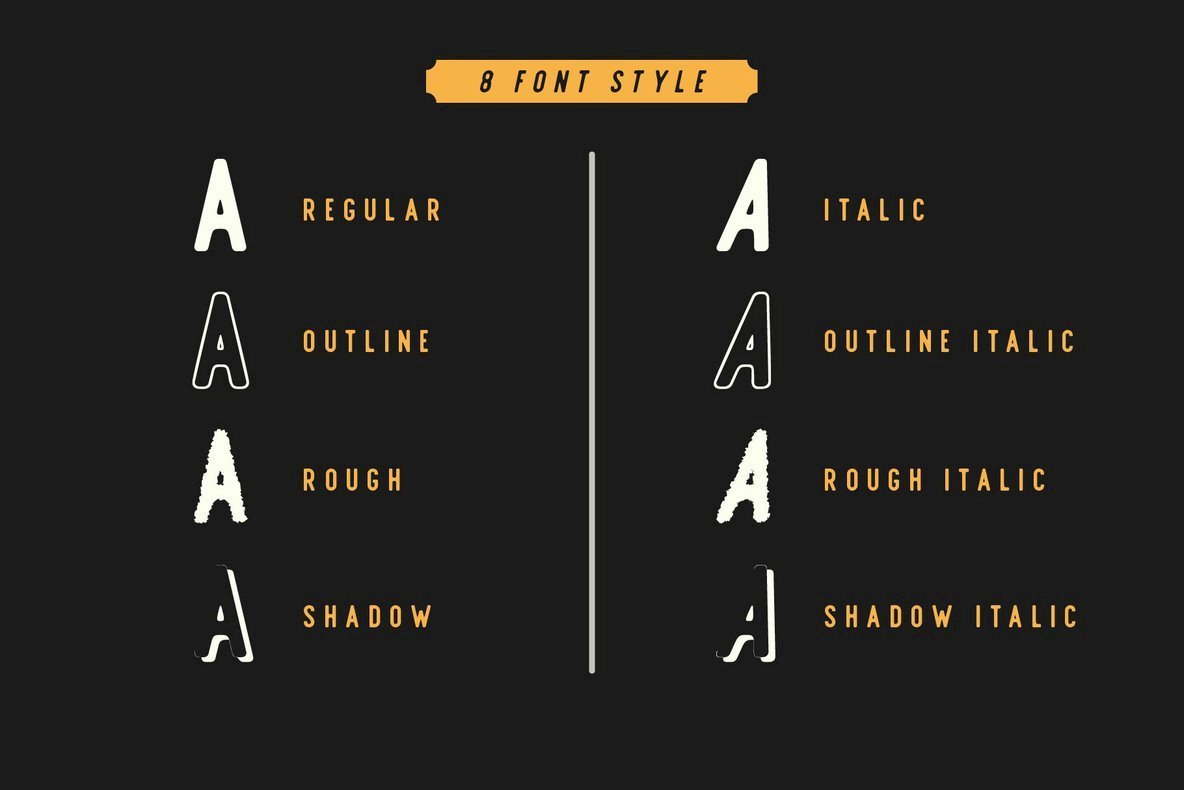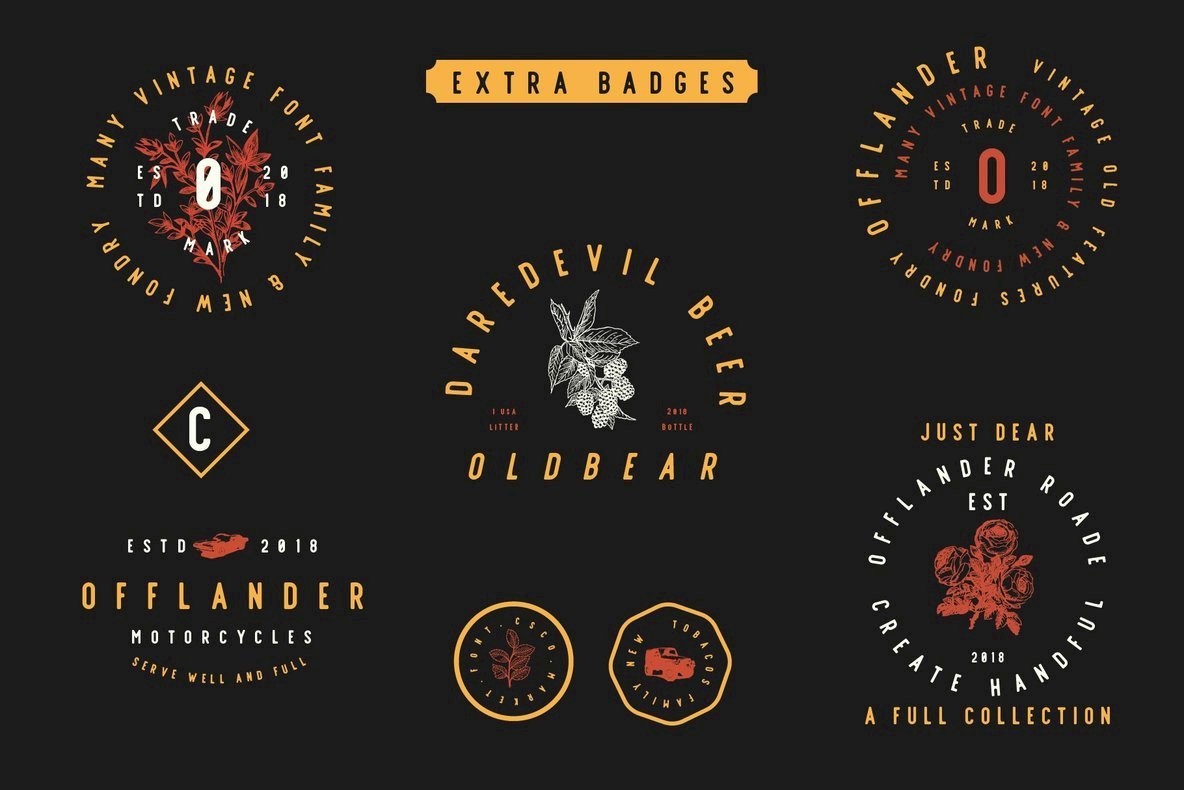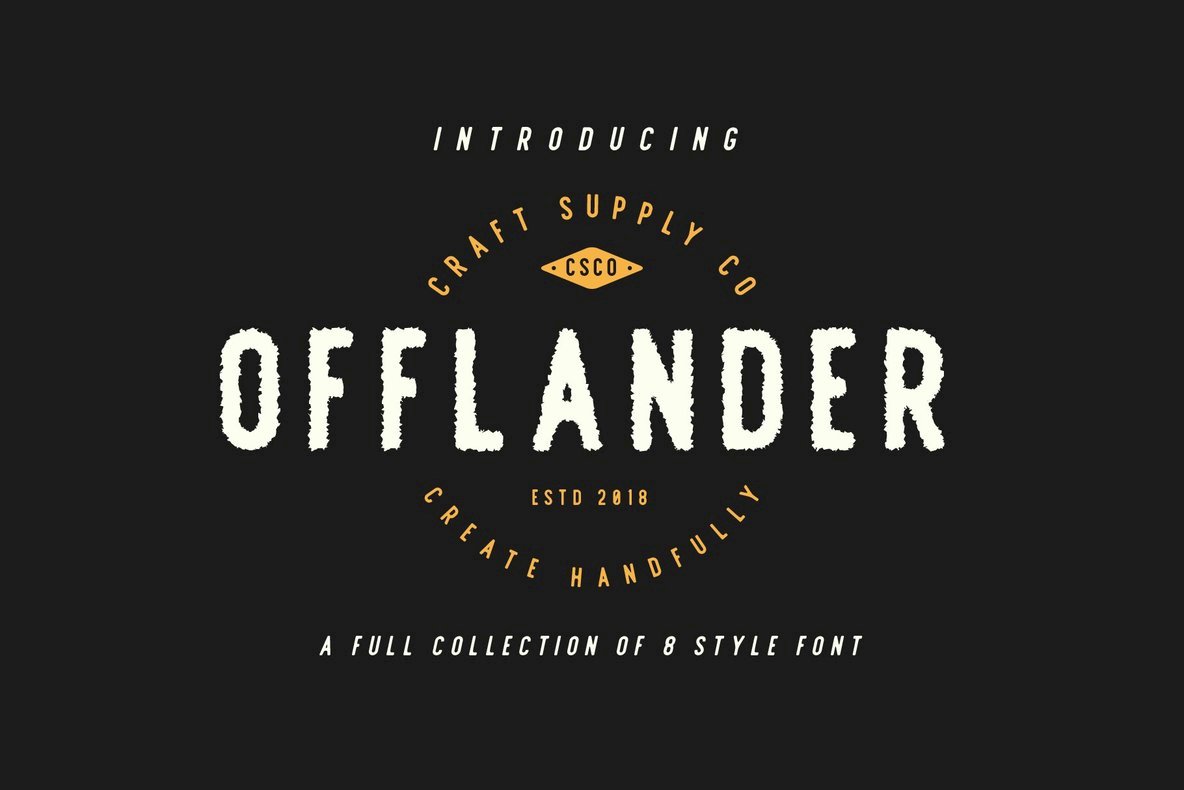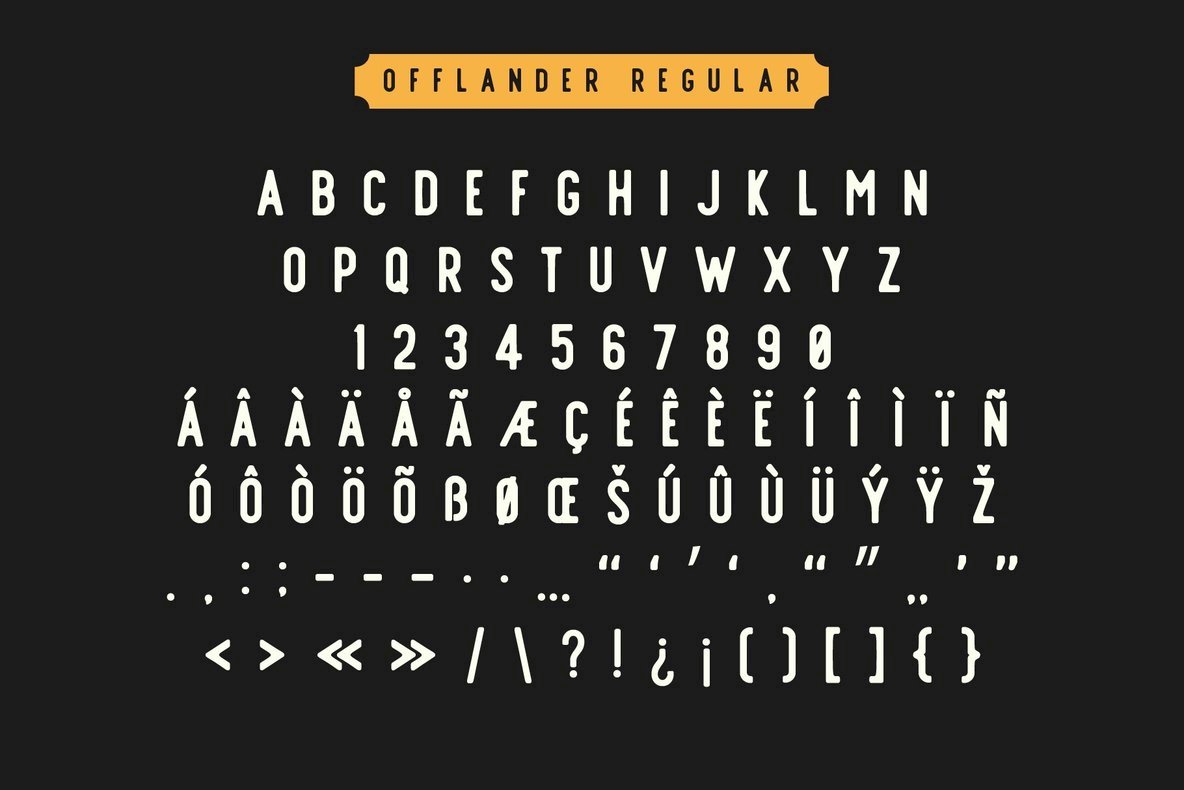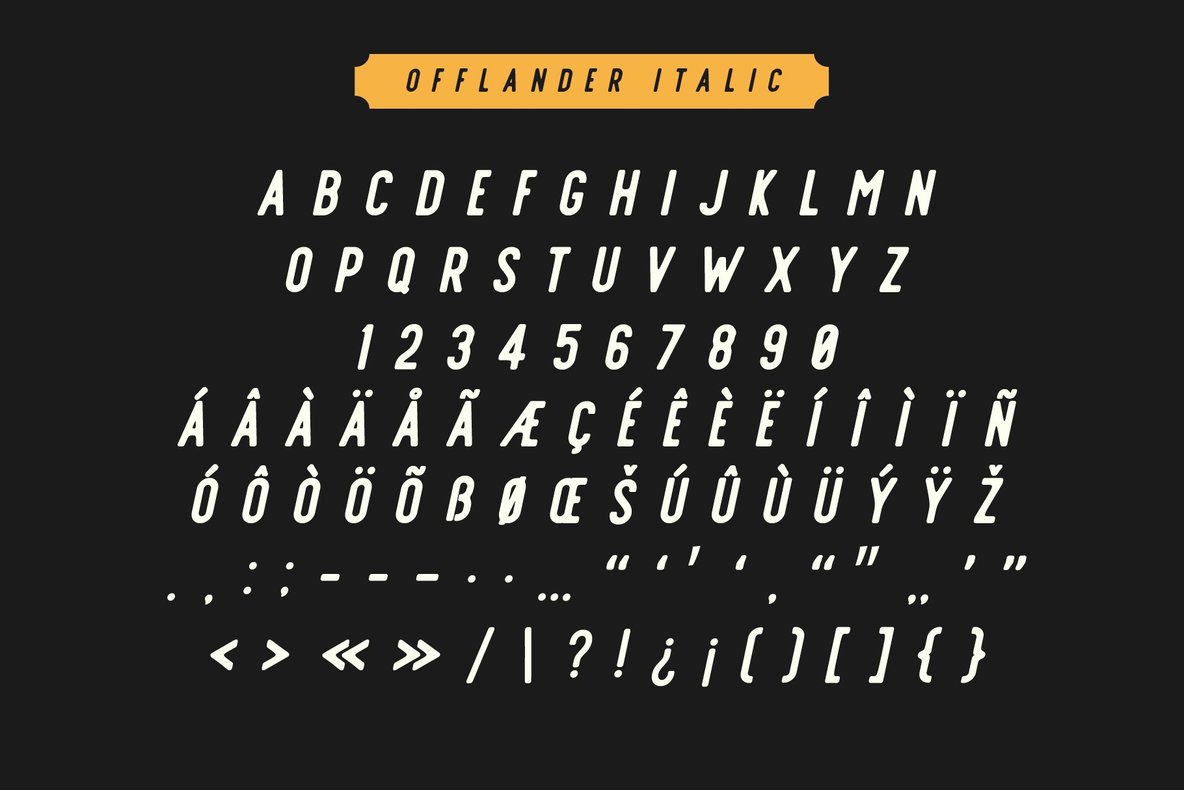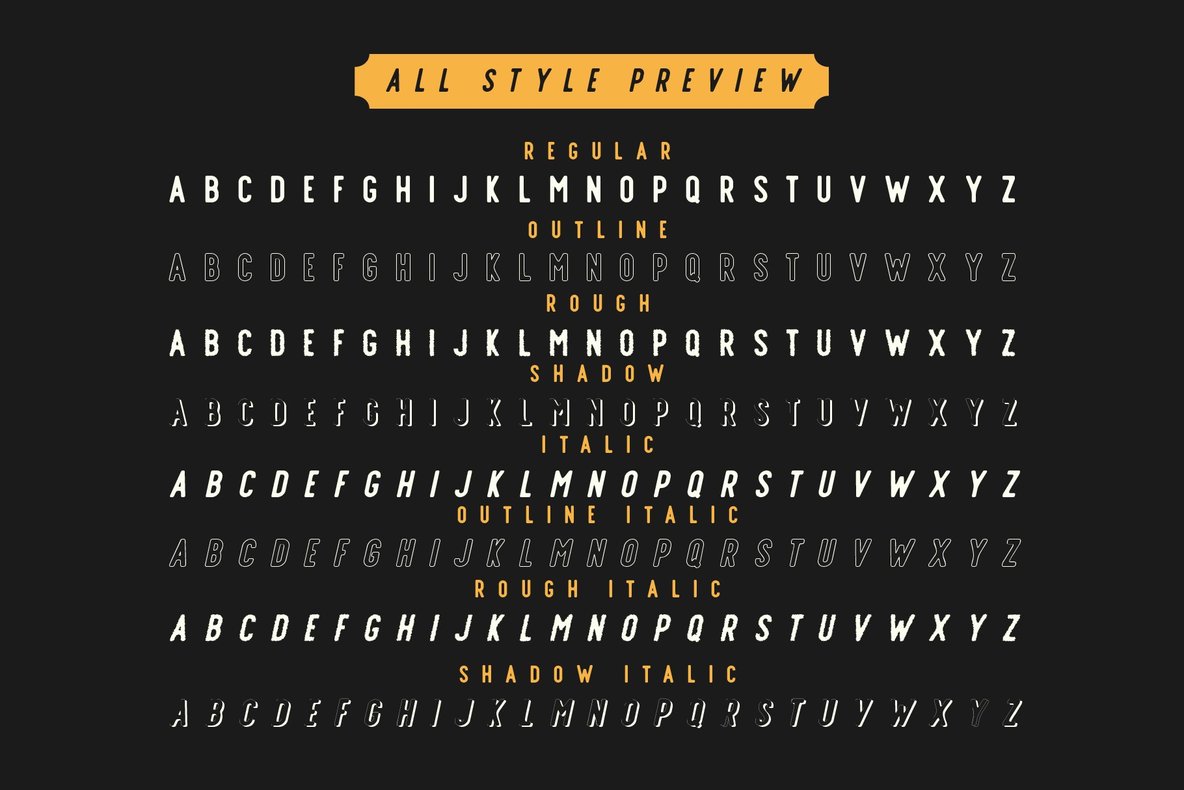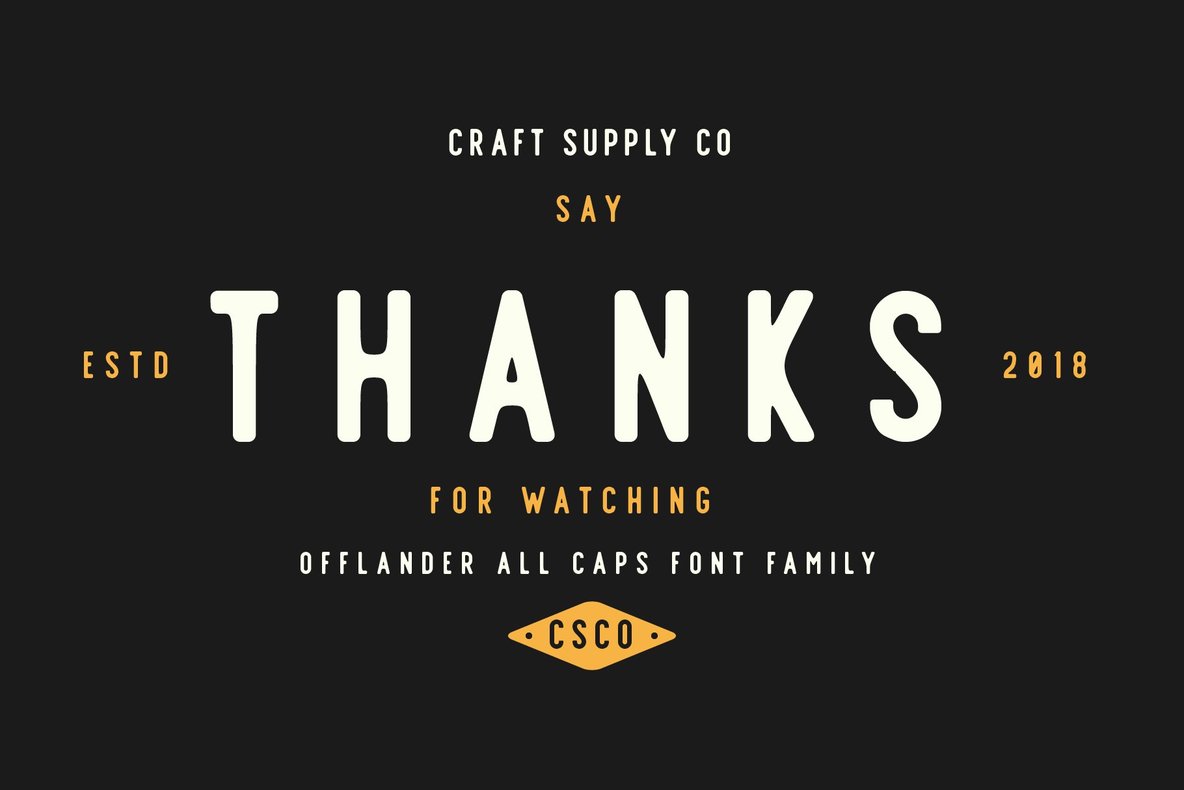
Offlander Font
Immerse your design projects in the versatile charm of Offlander, a robust all-caps font family by Craft Supply Co. Whether crafting print materials, assembling a vibrant package design, or curating an entire brand identity, Offlander offers a comprehensive solution. This font family invites creative experimentation with its extensive options, ensuring your projects feel dynamic and visually striking. Features:Offlander: All Caps Font Family for Diverse Designs